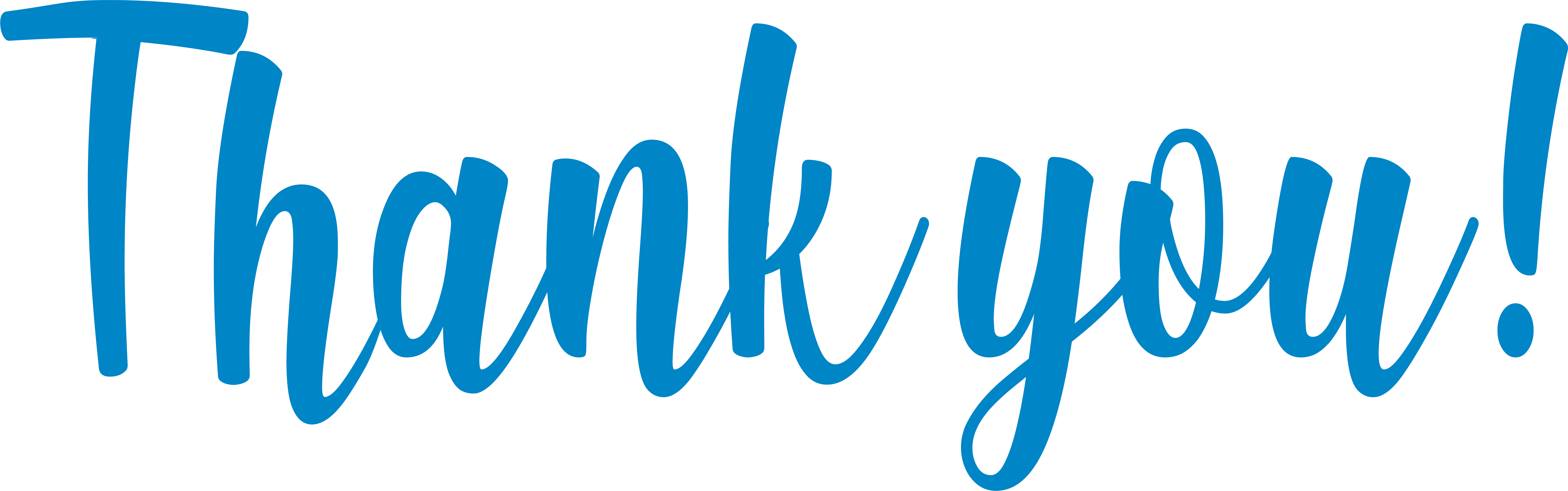
One of the kazillion brush scripts out there ![]()
I know that’s not that helpful .. but each one had just a hair bit of difference. If you need something close, try this
I kept looking … as I do ![]()
Part of the problem of determining which brush fonts are which, is that folks love to mix and match. ![]()
So … turns out Shrink is the font for the everything but the T. I’m still looking for that ![]()
It might be out there or it could be a modified T from Shrink or made specifically for this since whoever created it didn’t like the T ![]()